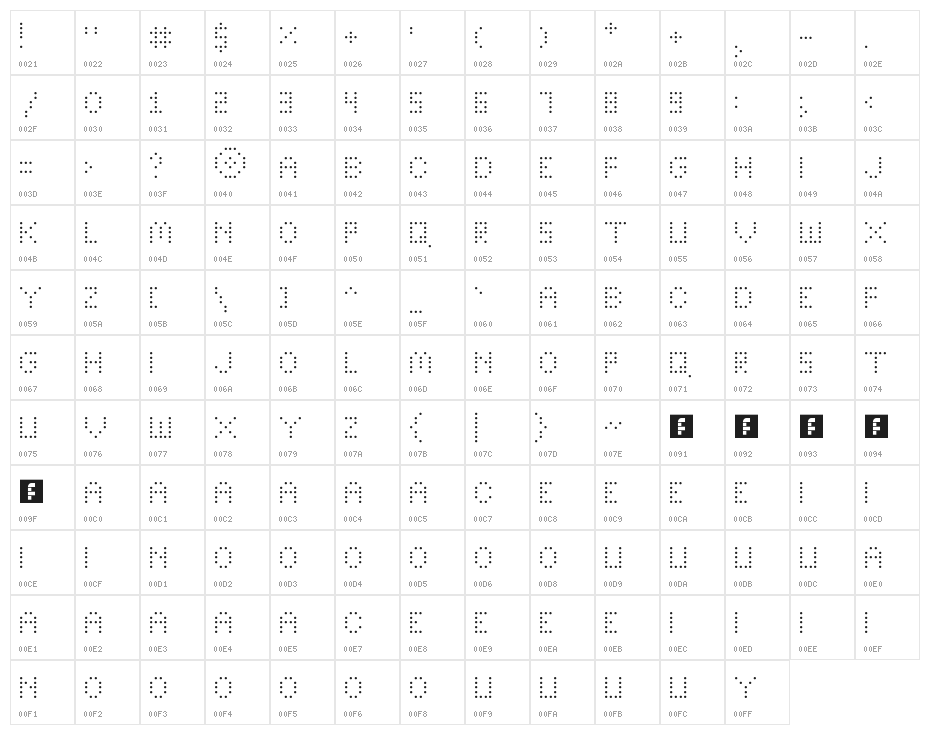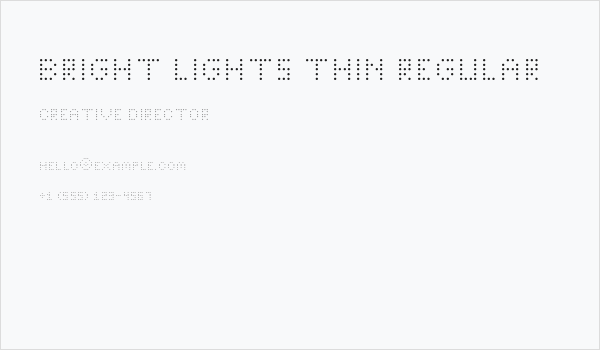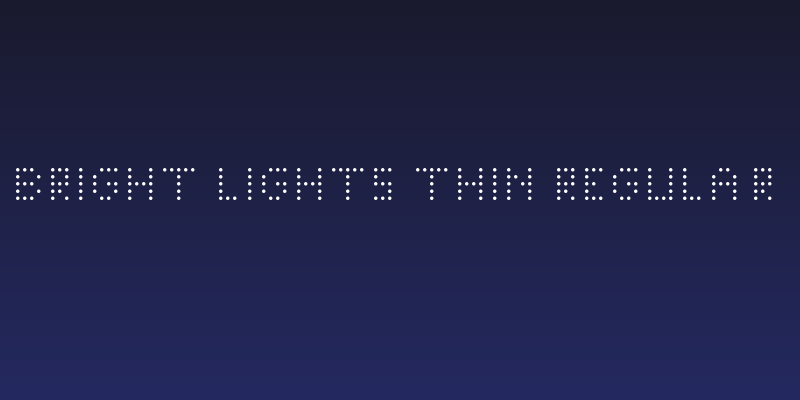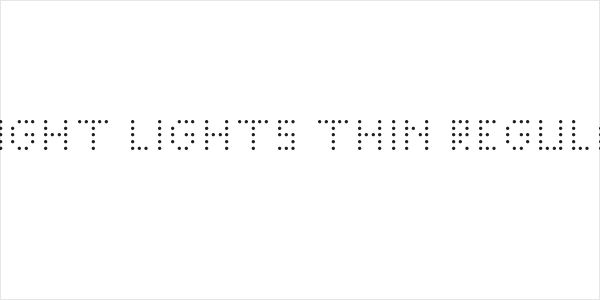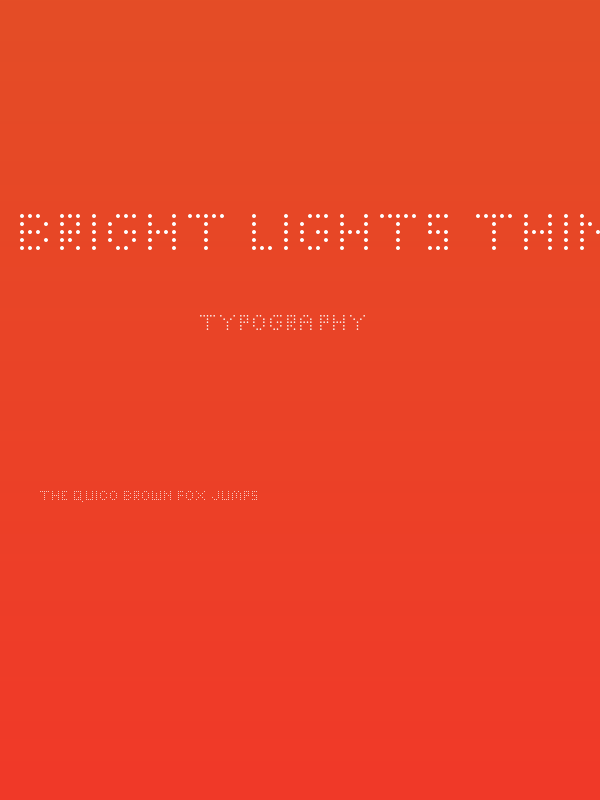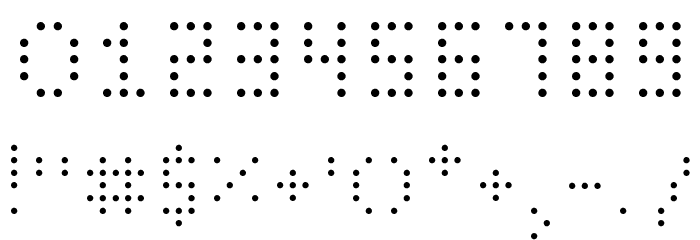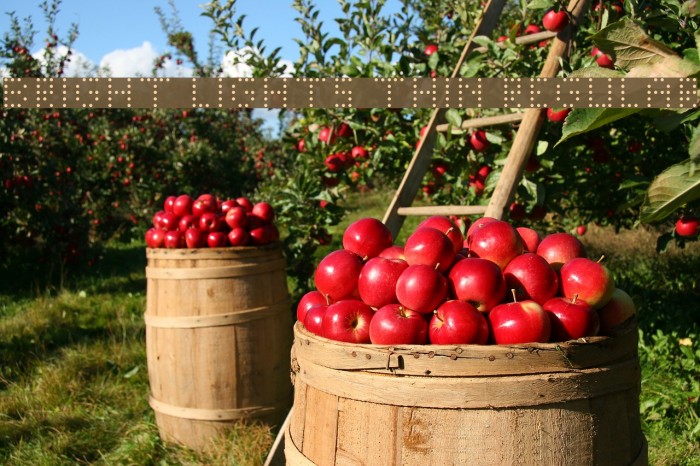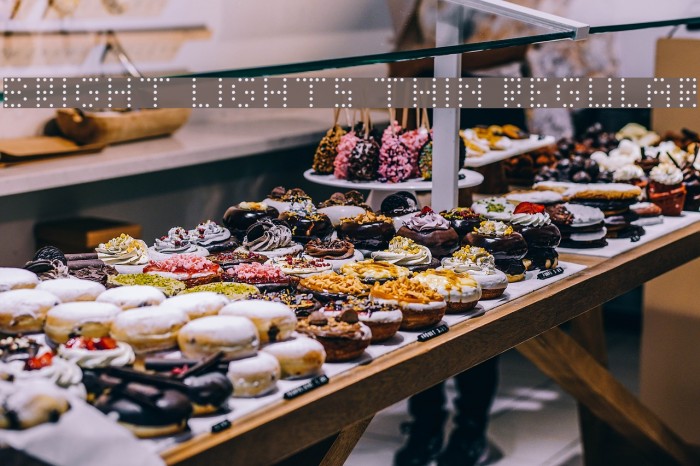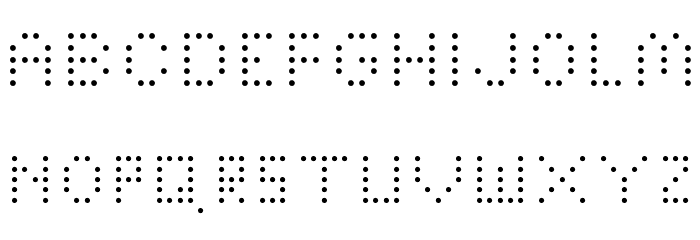
Bright Lights Thin Regular Font
Bright Lights Thin Regular Description
This font features a unique dot-matrix style, where each character is composed of a series of evenly spaced dots. The design is reminiscent of retro digital displays, offering a modern twist on a classic aesthetic. The characters are uniformly structured, providing a consistent and cohesive look across all letters and numbers. This font is particularly eye-catching due to its distinctive pattern, making it ideal for projects that require a futuristic or tech-inspired theme. The spacing between the dots is precise, ensuring readability while maintaining its decorative appeal.
| Proposed Projects | Ideal for digital displays, tech-themed posters, futuristic branding, and creative digital art. |